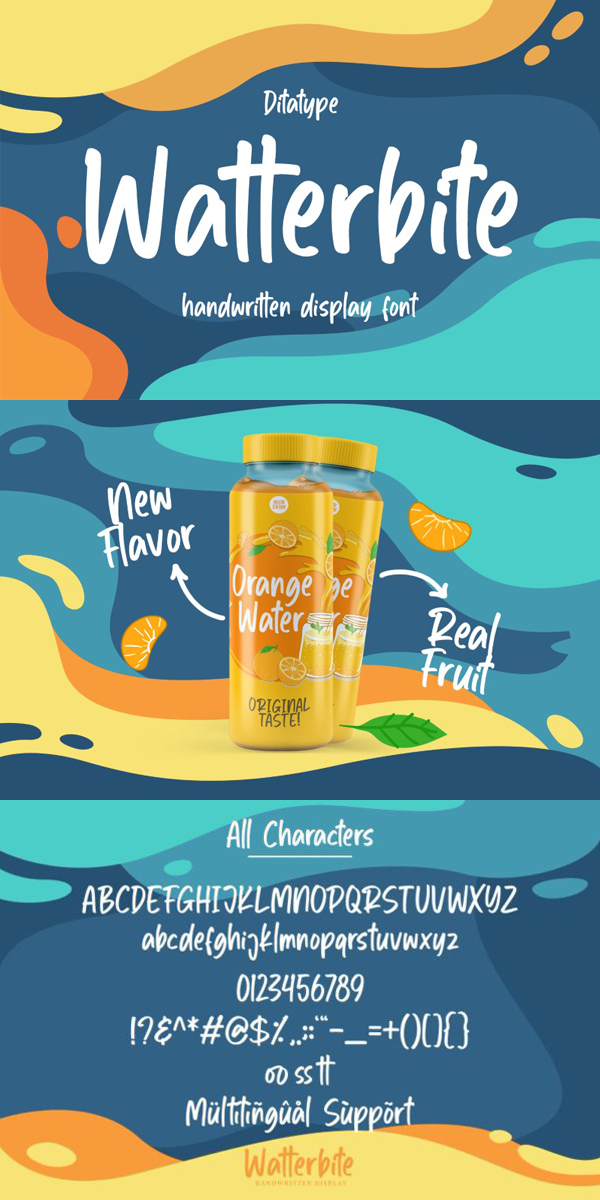
Watterbite Font
About Watterbite
Watterbite is a classy script font. Made for any professional project branding. It is the best for logos, branding and quotes. Every letter has a unique and beautiful touch.